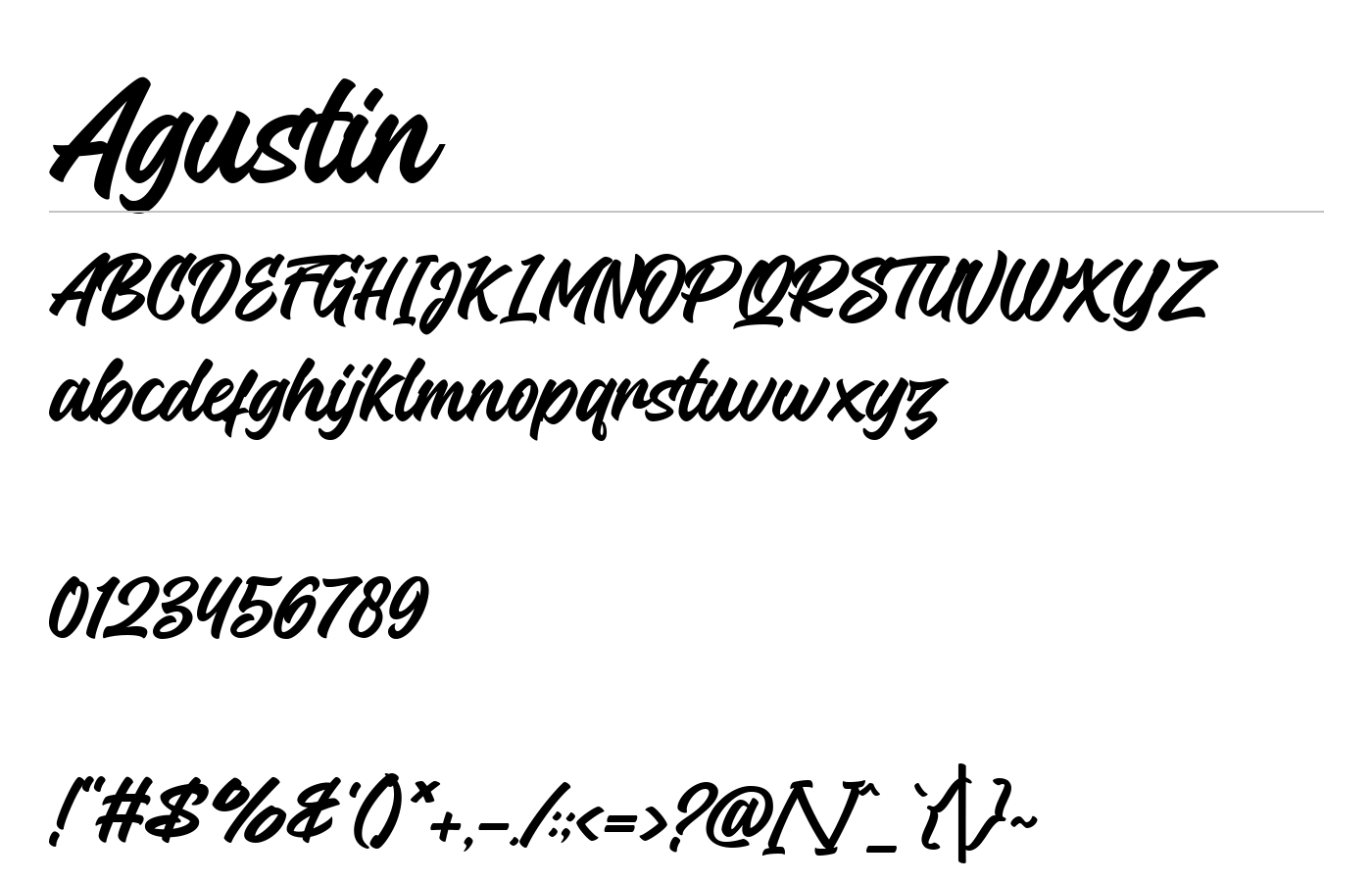
Agustin is a bold, brush-style script font characterized by its lively, hand-painted feel and energetic strokes. It combines smooth, flowing letterforms with a touch of casual flair, making it perfect for creative branding, packaging, and eye-catching headlines. This font brings a vibrant, approachable personality to designs that need a dynamic and modern handwritten look.
Agustin Font
About Agustin Font